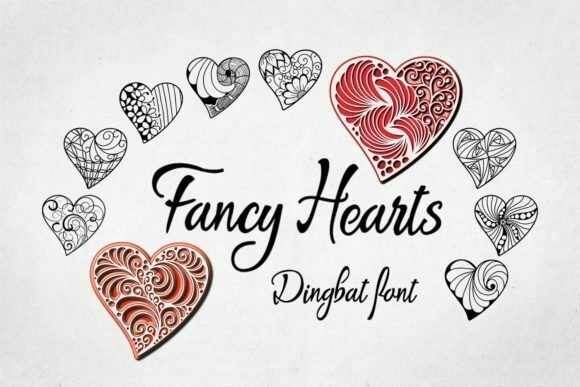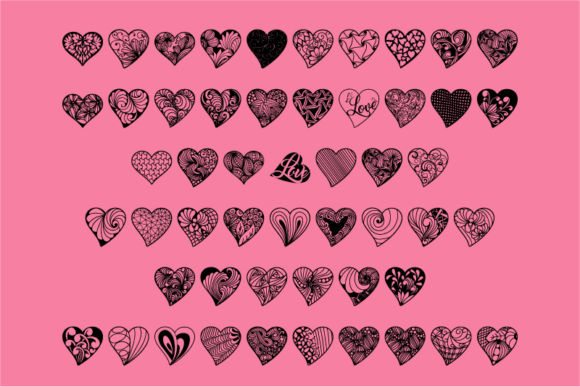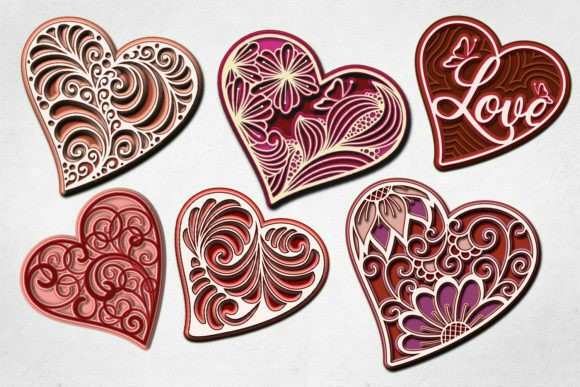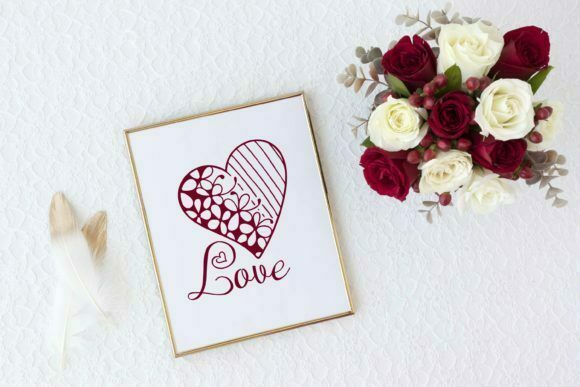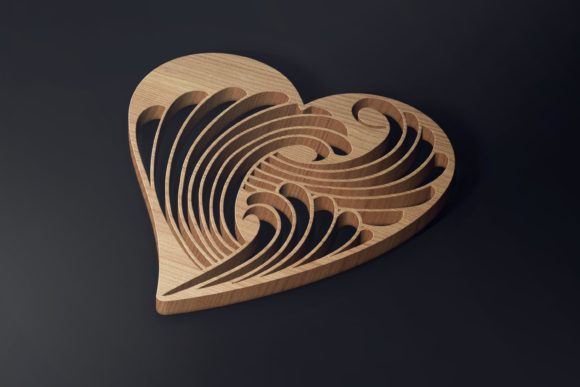
Fancy Hearts Font
“Fancy Hearts” is a cute and charming dingbats font that features a variety of beautiful heart elements. With its unique and intricate designs, this font is perfect for creating original and outstanding designs that evoke a sense of love, romance, and warmth. Here are some creative ideas on how to make the most of the “Fancy Hearts” font:
1. Valentine’s Day Cards: The “Fancy Hearts” font is ideal for designing Valentine’s Day cards. Use the heart elements as decorative accents, borders, or patterns in your card designs. Combine different heart symbols to create eye-catching compositions that convey messages of love and affection. Experiment with different sizes, colors, and placements to make your designs truly standout.
2. Wedding Invitations: If you’re working on wedding stationery or invitations, the “Fancy Hearts” font can add a touch of elegance and romance. Incorporate the heart elements into monograms, borders, or decorative flourishes to create a sophisticated and romantic design. The intricate details of the heart symbols will make your invitations truly special and memorable.
3. Love-Themed Posters or Prints: Use the “Fancy Hearts” font to create love-themed posters or prints for home decor or gifting. Combine the heart elements with beautiful typography to create visually striking compositions. Whether it’s a romantic quote, a love-themed artwork, or a personalized print, the “Fancy Hearts” font will add a whimsical and enchanting touch to your designs.
4. Social Media Graphics: Make your social media posts more engaging and captivating with the “Fancy Hearts” font. Use the heart elements to create eye-catching backgrounds, decorative borders, or to highlight important messages. Whether you’re sharing love-related content, celebrating anniversaries, or promoting special offers, this font will help you stand out and attract attention.
5. Scrapbooking and Crafts: The “Fancy Hearts” font can also be a wonderful addition to your scrapbooking and crafting projects. Use the heart elements as embellishments, borders, or focal points in your layouts. They can add a touch of whimsy and charm to your memory keeping and DIY projects.
Remember to explore the various characters and variations offered by the “Fancy Hearts” font to find the ones that best suit your design needs. Additionally, consider combining the font with complementary typefaces and graphic elements to create a cohesive and visually appealing composition.
In summary, “Fancy Hearts” is a cute dingbats font with beautiful heart elements that allow you to create original and outstanding designs. Whether you’re working on Valentine’s Day cards, wedding invitations, love-themed posters, social media graphics, or scrapbooking projects, this font will bring a touch of whimsy, romance, and warmth to your designs. Enjoy the process of experimenting and let the “Fancy Hearts” font inspire your creativity!